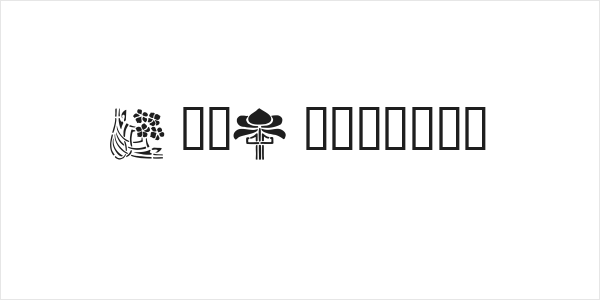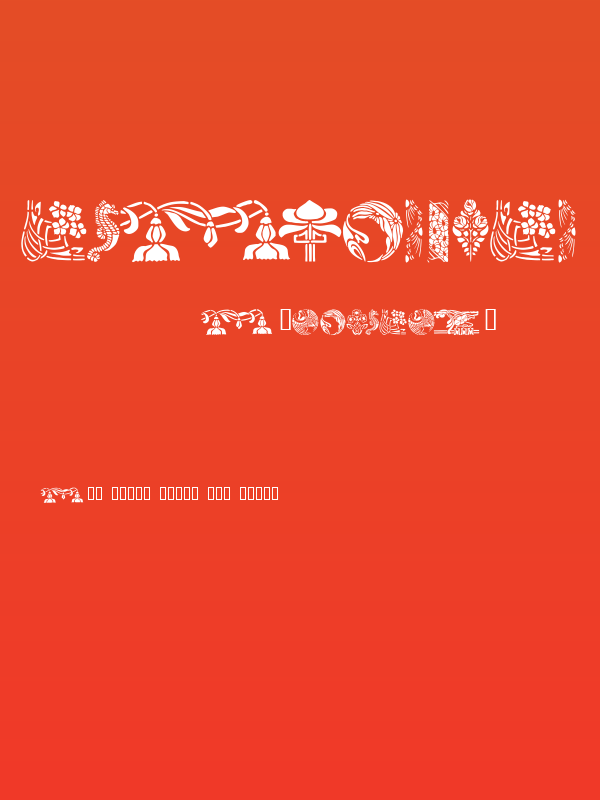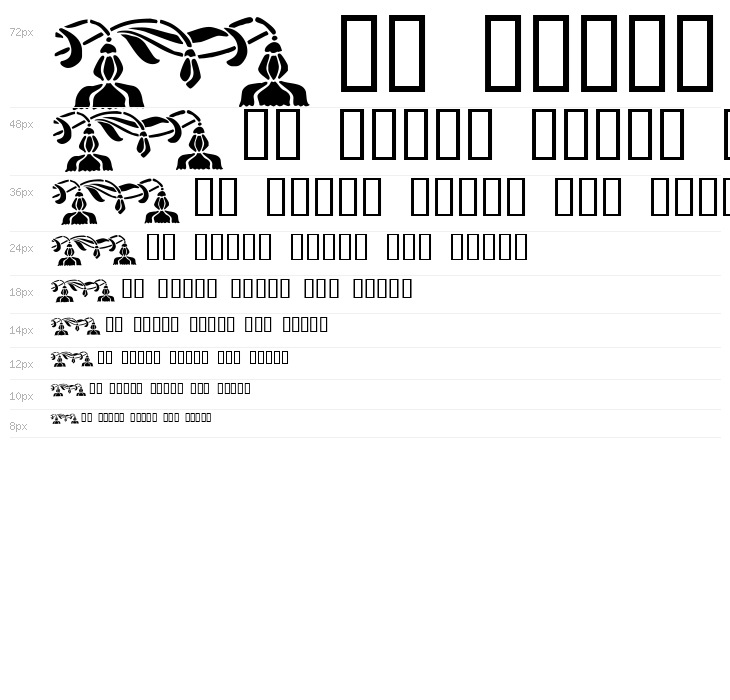
ArtNouveau2 Font
ArtNouveau2 Description
This is not a valid font. The image contains decorative elements and motifs typical of the Art Nouveau style, characterized by intricate floral and organic designs. These elements are more ornamental and are not structured as a traditional typeface with recognizable letters and numbers.
Use CaseDecorative art, embellishments, borders
Proposed ProjectsThese decorative elements could be used for artistic projects, such as creating borders, embellishments for invitations, or decorative art pieces.